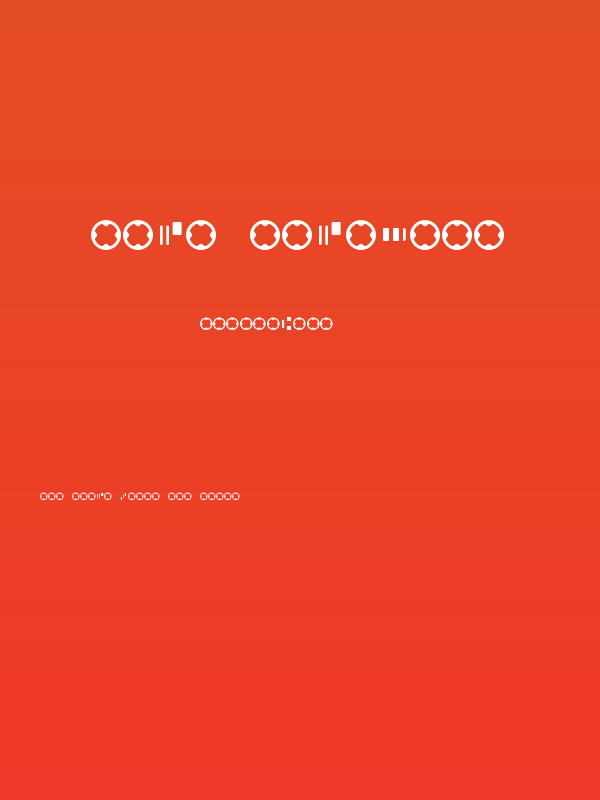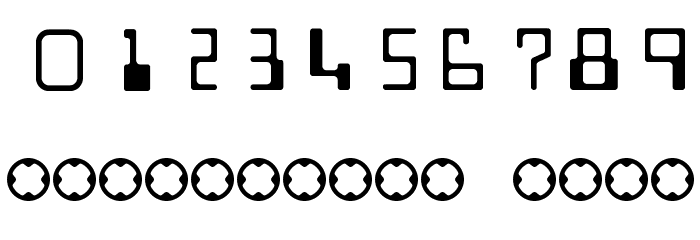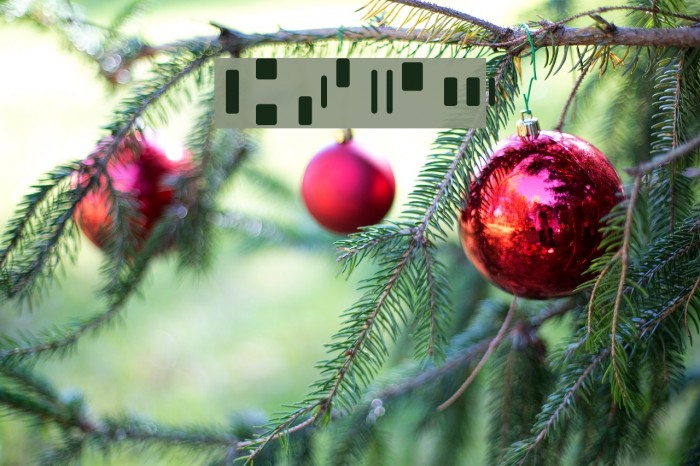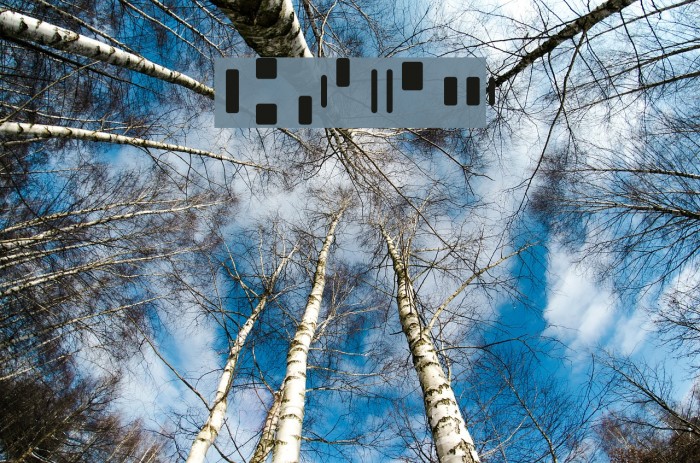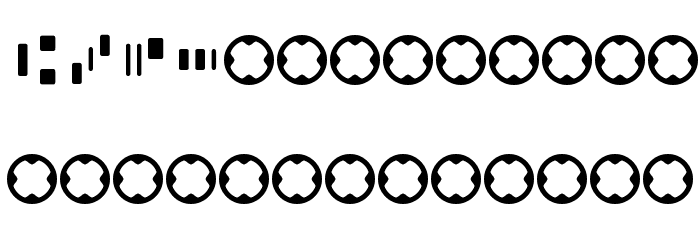
MICR Encoding Font
MICR Encoding Description
This font is specifically designed for Magnetic Ink Character Recognition (MICR) technology, commonly used in banking and financial industries for check processing. The characters are uniquely shaped to be easily read by machines, featuring a combination of straight lines and geometric forms. The numbers are distinct and bold, ensuring high legibility. The font lacks traditional alphabetical characters, focusing instead on numeric and special symbols essential for encoding financial data. The design is utilitarian, prioritizing function over aesthetic appeal, with a consistent stroke width and minimal contrast.
| Overall Style | Functional |
| Use Case | Financial documents, Check printing |
| Proposed Projects | Ideal for check printing, bank document processing, and any project requiring machine-readable numeric data. |